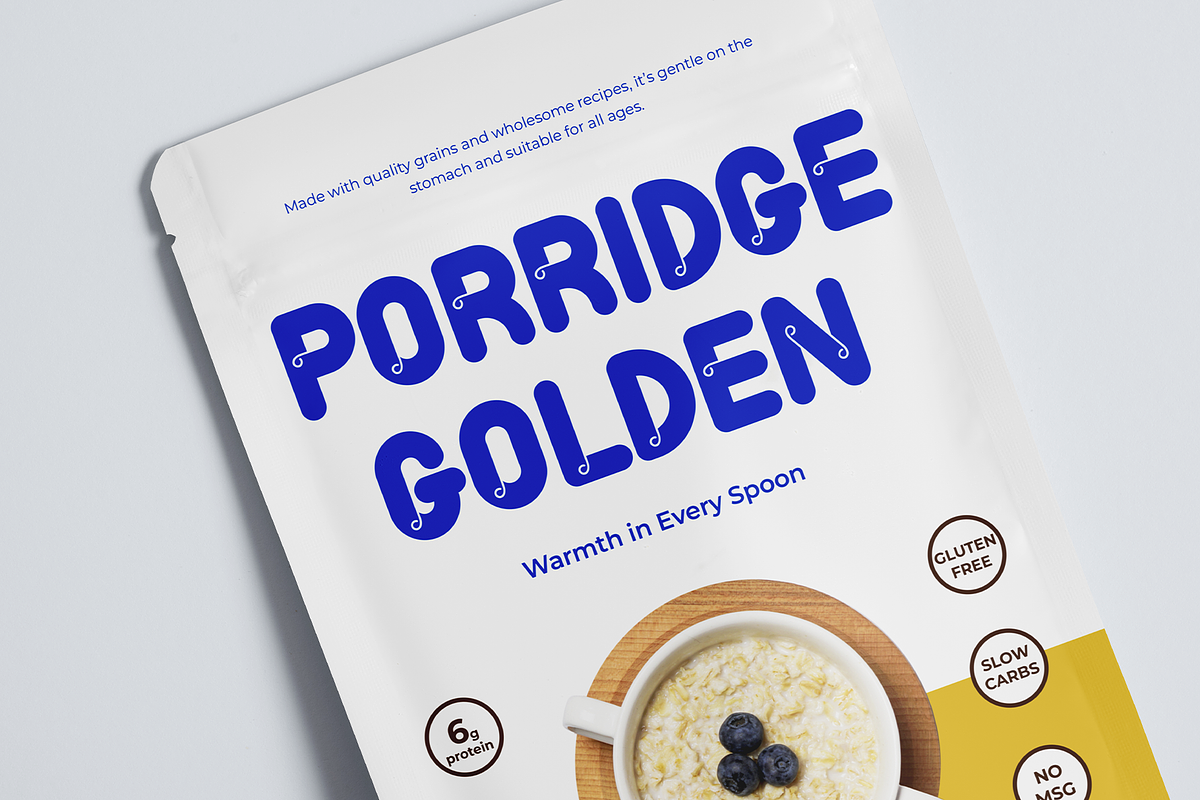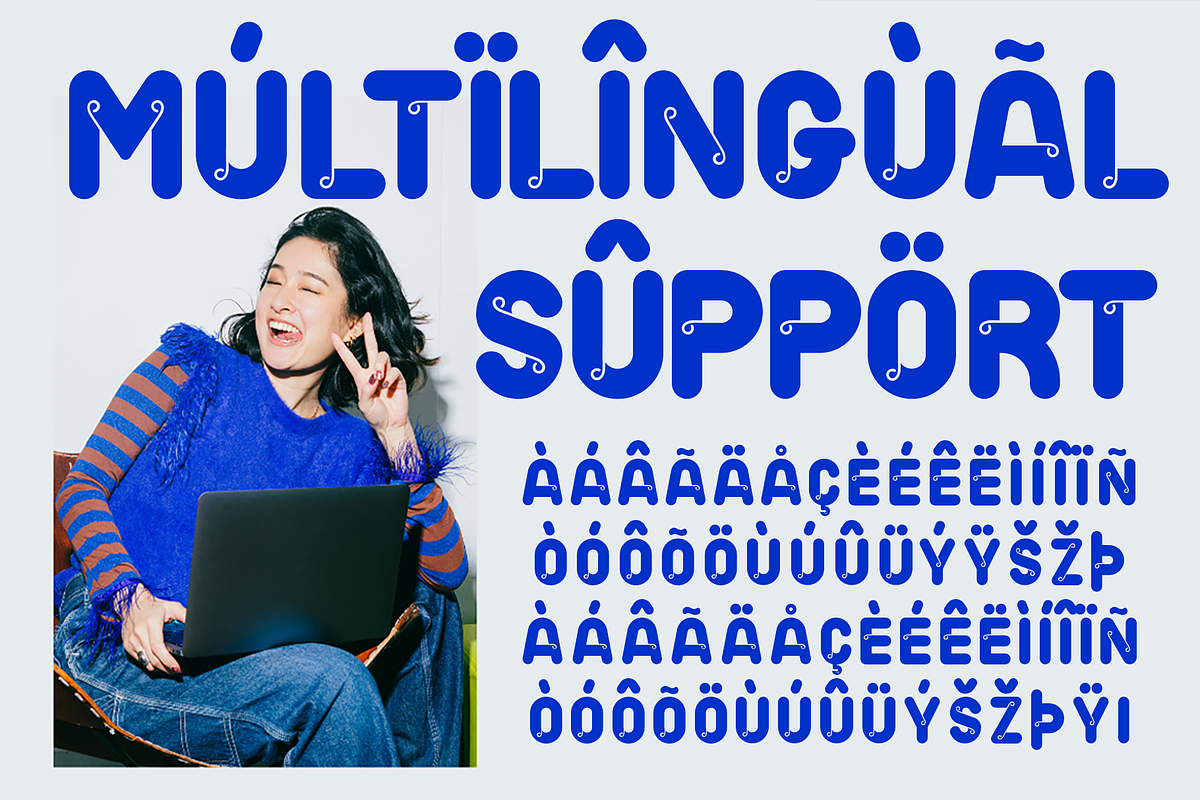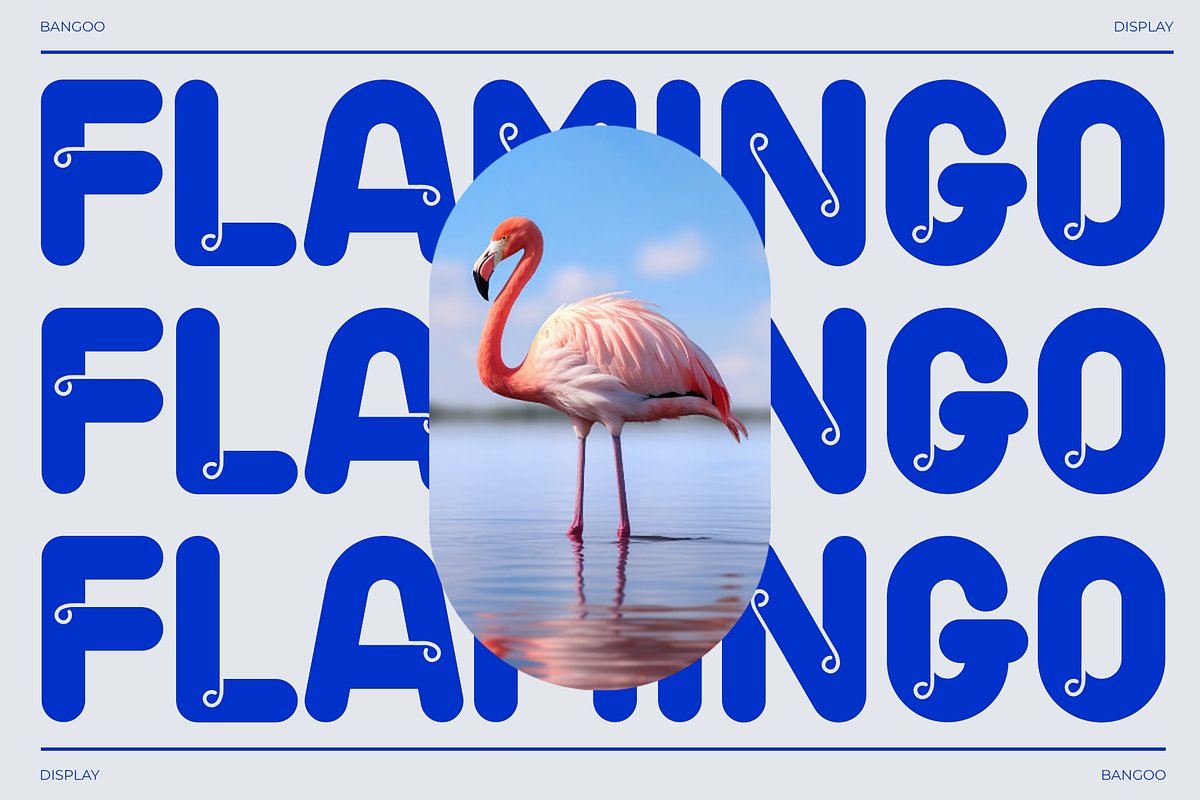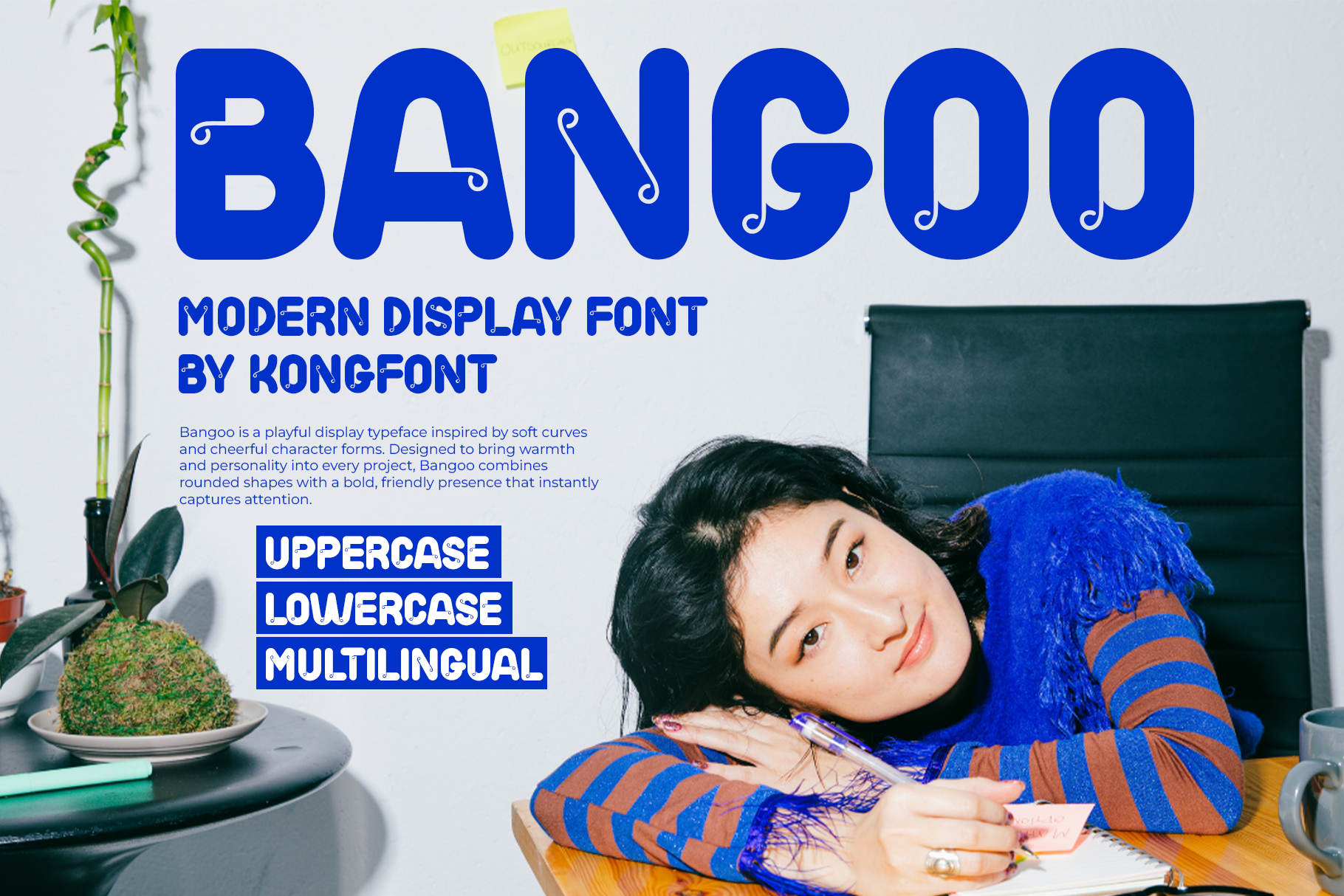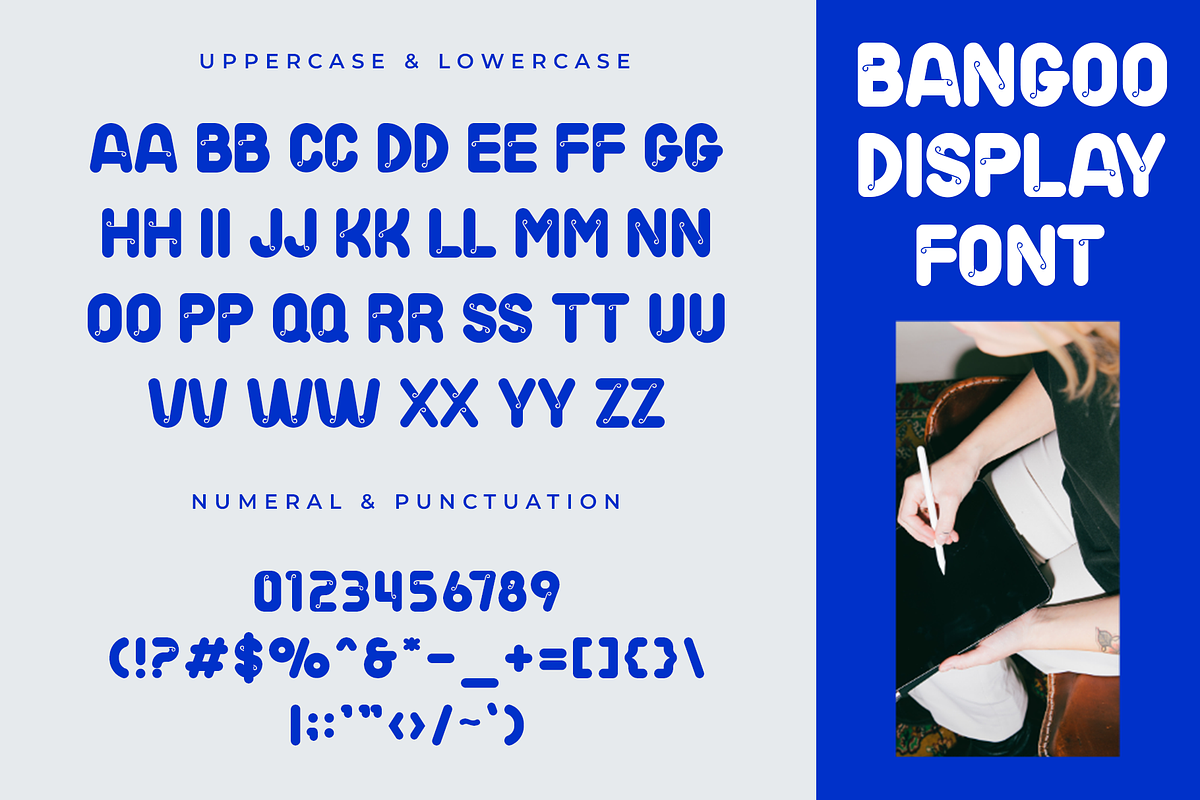
Bangoo – Modern Display Font
Bangoo is a modern display font designed to make a strong and memorable impression. With its bold shapes, dynamic curves, and eye catching character, Bangoo brings a fresh and playful energy to your creative projects.
Perfect for posters, branding, product packaging, social media graphics, headlines, event promotions, merchandise, and trendy logos, Bangoo stands out beautifully in large sizes. Its unique and expressive style makes it ideal for designs that need personality and impact.